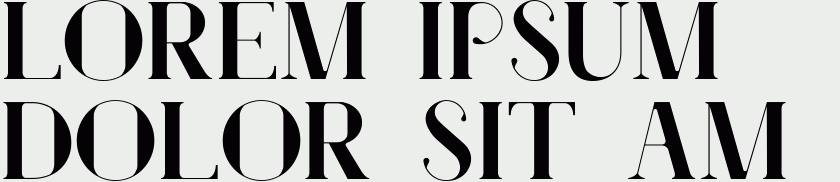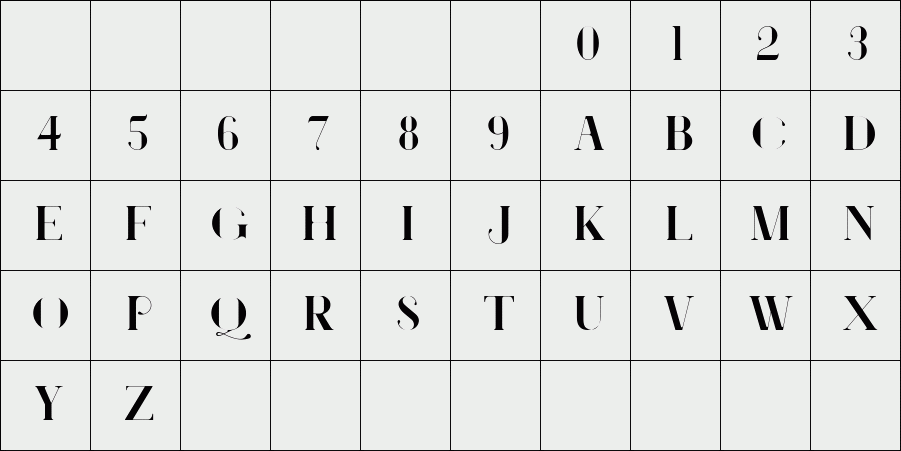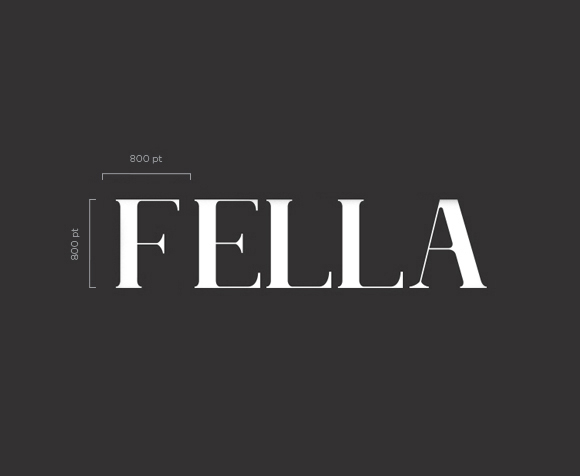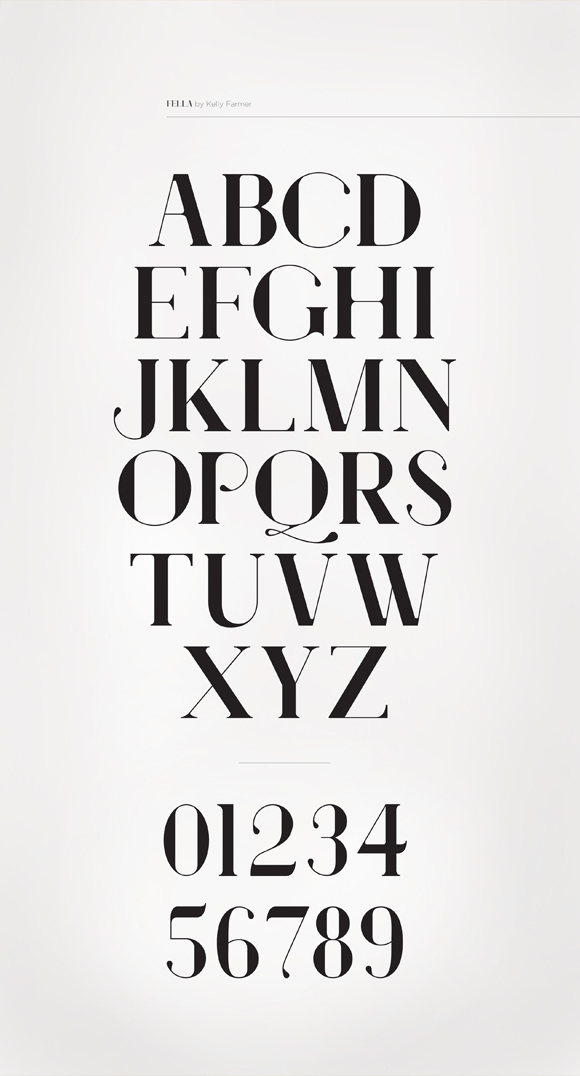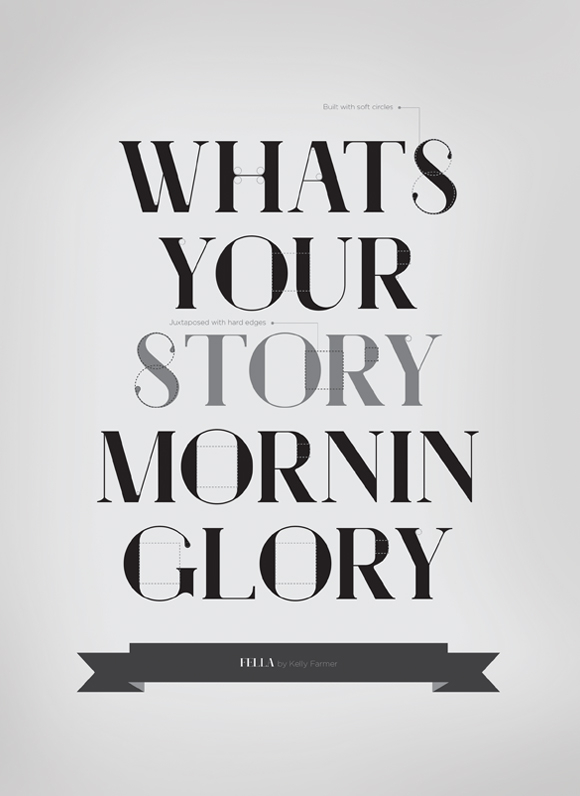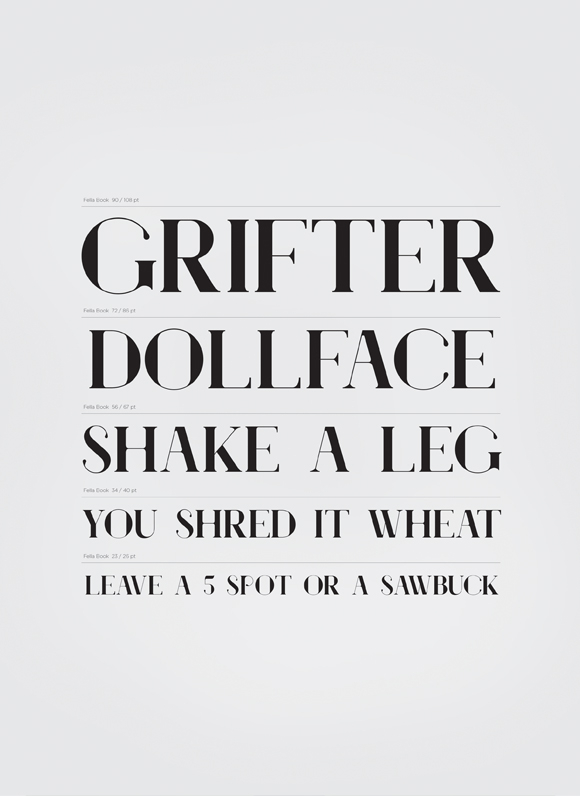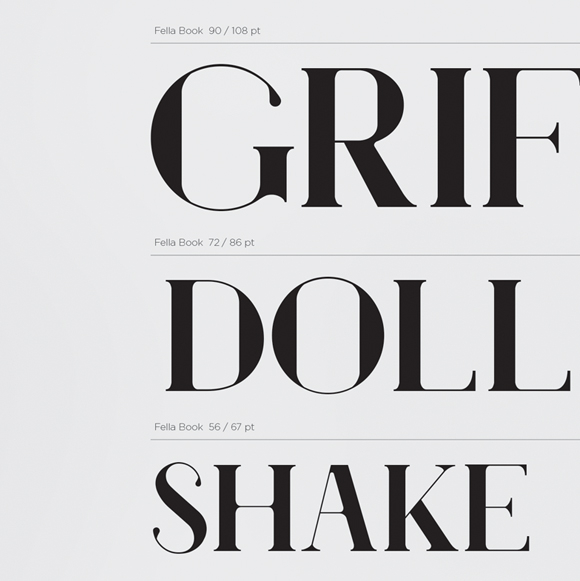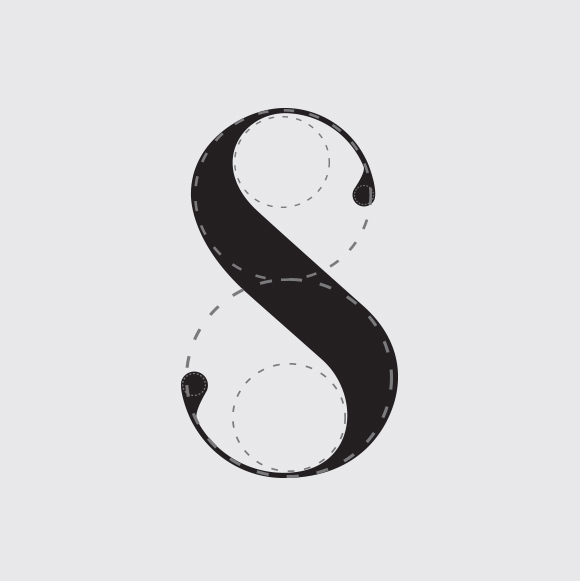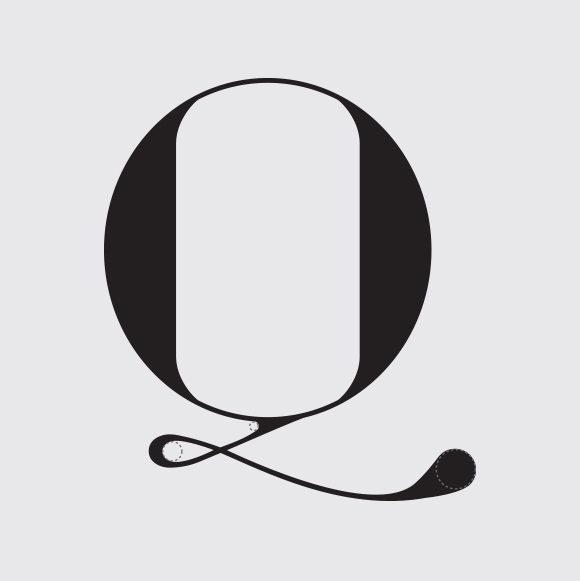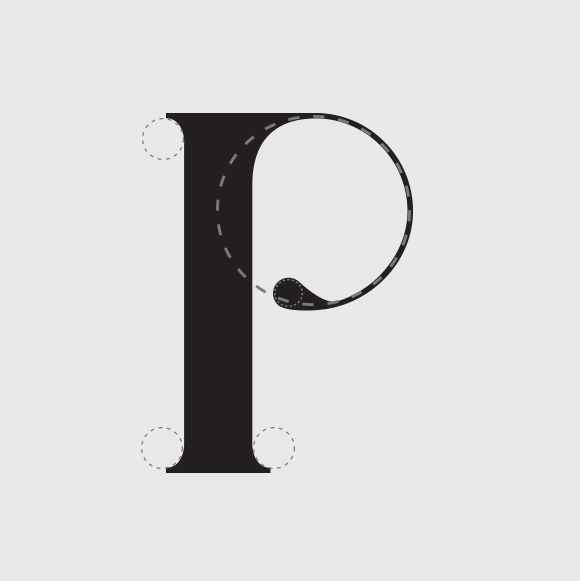
Fella
The Fella typeface is inspired by the juxtaposition between soft circles and hard-edged squares. High contrasting with a mix of modern and transitional proportions, Fella is both elegant and authoritative.
Designer: Kelly Farmer